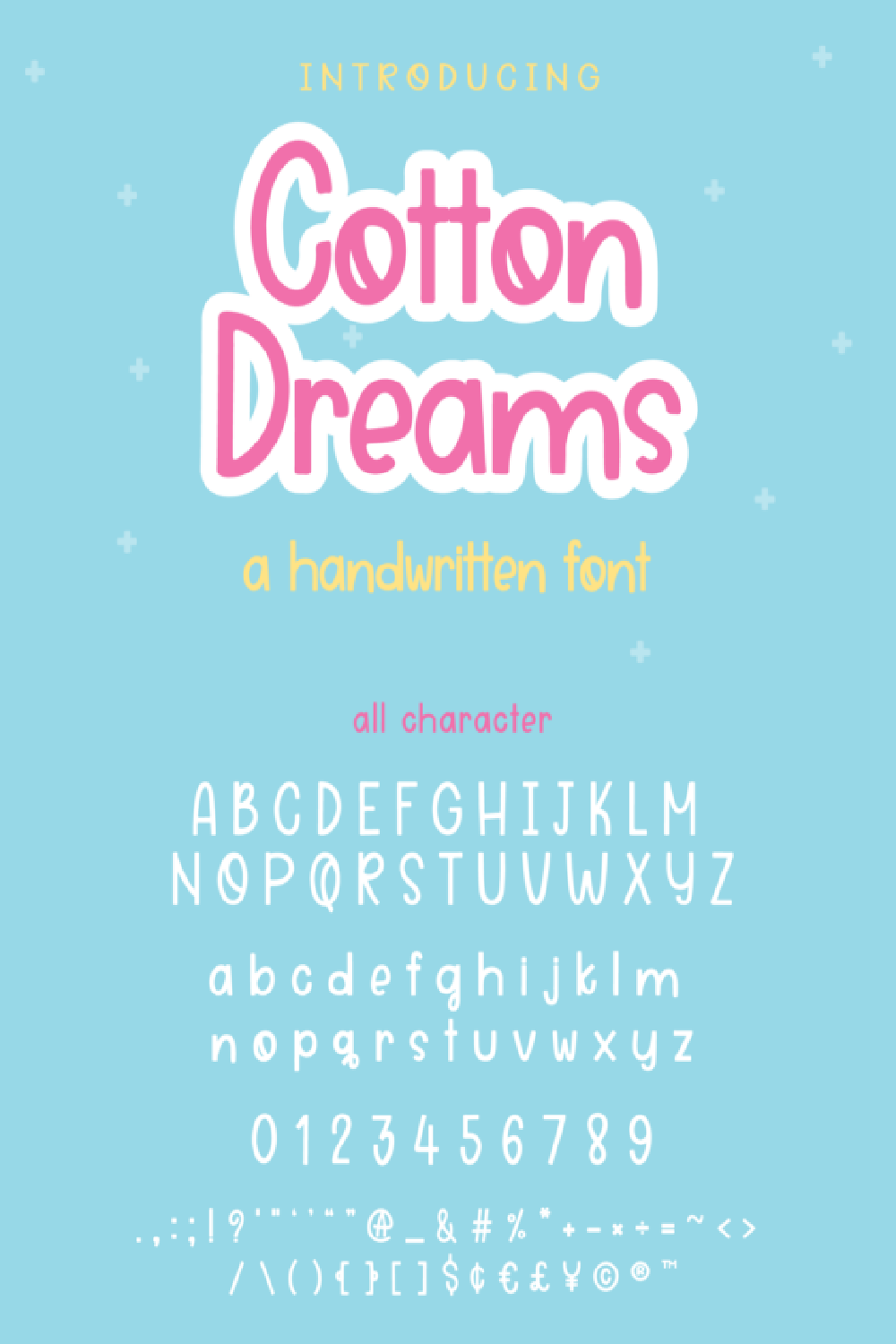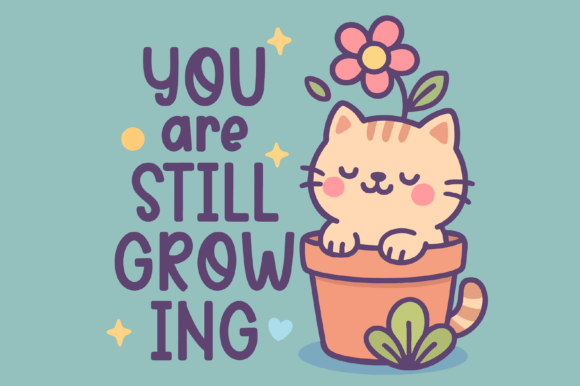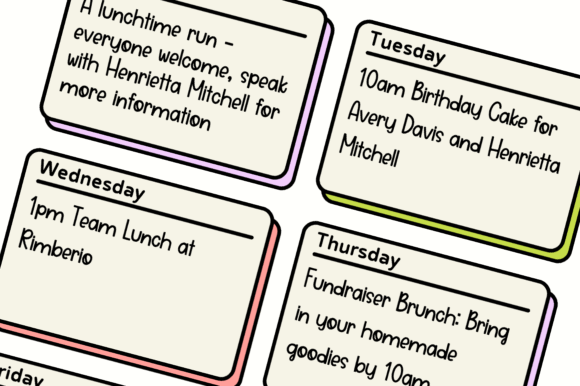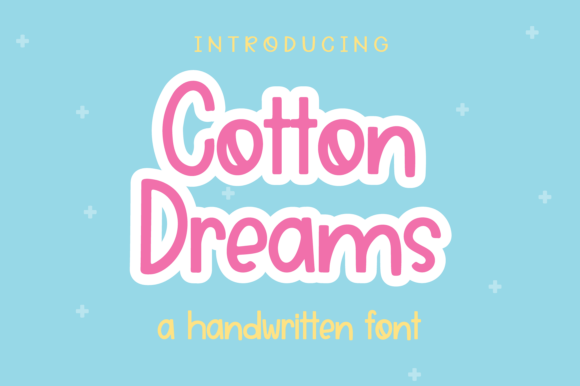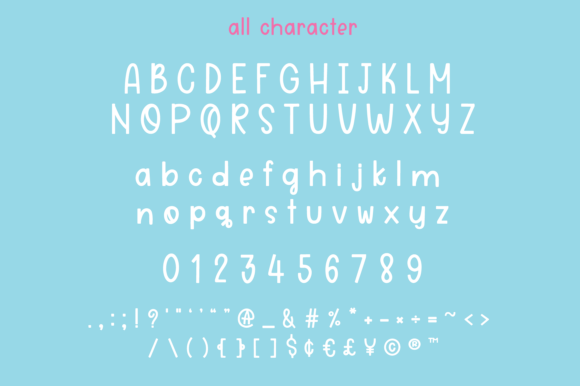
Cotton Dreams Font: Cute Handwritten Font for Cricut & DIY Projects
About the Cotton Dreams Font
Let us introduce you to Cotton Dreams Font, where timeless design meets modern craftsmanship. Introducing Cotton Dreams, an enchantingly gentle handwritten font with a hint of whimsy! Its tender curves and pastel-like appeal make it an ideal match for kids-themed creations, serene baby shower invites, the branding of adorable merchandise, darling stickers, and way beyond. Cotton Dreams infuses each task with a sprinkle of warmth and a dash of fantasy.
Enrich your next creative venture with the soft magic of Cotton Dreams!
Cotton Dreams Font Usage Examples
Cotton Dreams Font Example